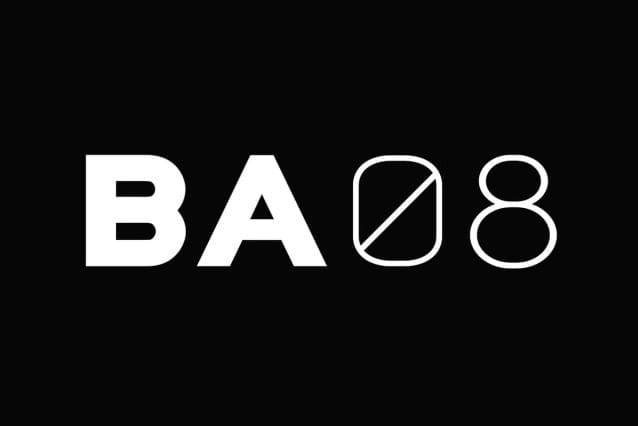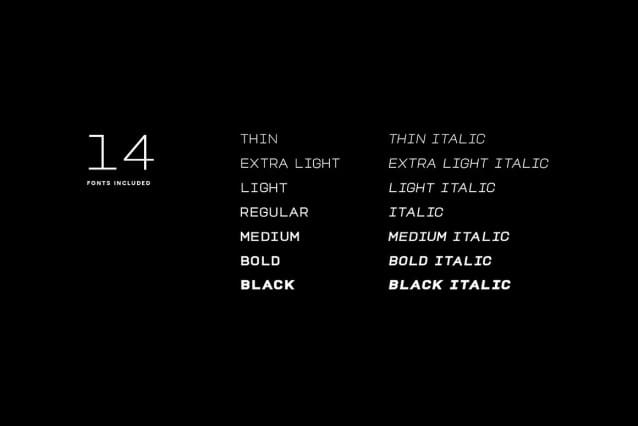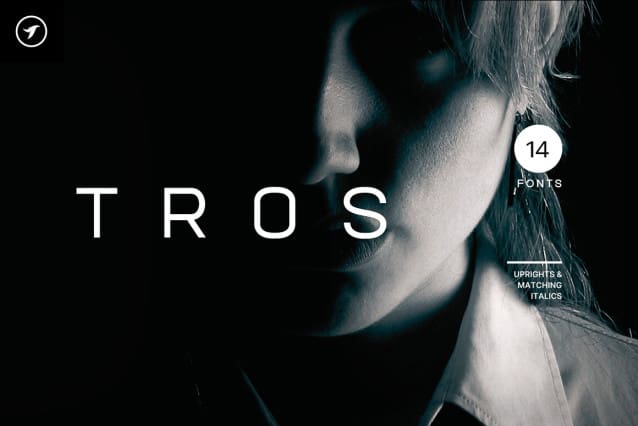
Salamahtype Font Family
Salamahtype Font Family is a unique and modern font family that features a Sans Serif/Display/All-Caps style. This font family stands out due to its unique and distinctive design. It is best suited for creating branding, logotypes, headlines, corporate identities, and marketing materials for both web and print. When used for minimal designs, TROS is particularly effective.
Thanks to its efficient letter spacing options, this versatile font offers endless possibilities for modern and minimalist designs, including logos, headlines, and identities. Please see the included demo graphics to get an idea about the capability of this typeface when used for branding and marketing material design. To get a better idea of the capabilities of this font, please refer to the included demo graphics.
TROS font family comes with 14 fonts, including five upright weights (THIN / EXTRA LIGHT / REGULAR / MEDIUM / BOLD / BLACK) as well as Italic versions of all five weights. Each weight includes extended language support including Western European & Central European sets. A total of 250 glyphs are included.